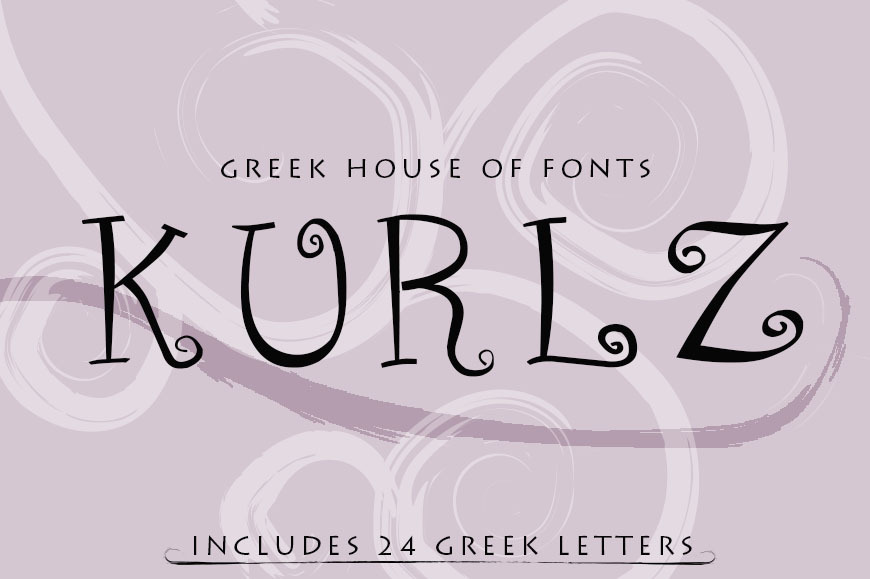
Kurlz Greek Font
Kurlz Greek font is cute sorority style lettering that comes in .TTF format. This font is perfect for designing T-shirts, hats, hoodies, cards, cups, fliers, and anything else you can conjure up for a sorority.
Type lowercase for Latin/English style lettering and type UPPERCASE for Greek lettering. This font also has bold version with Greek only.